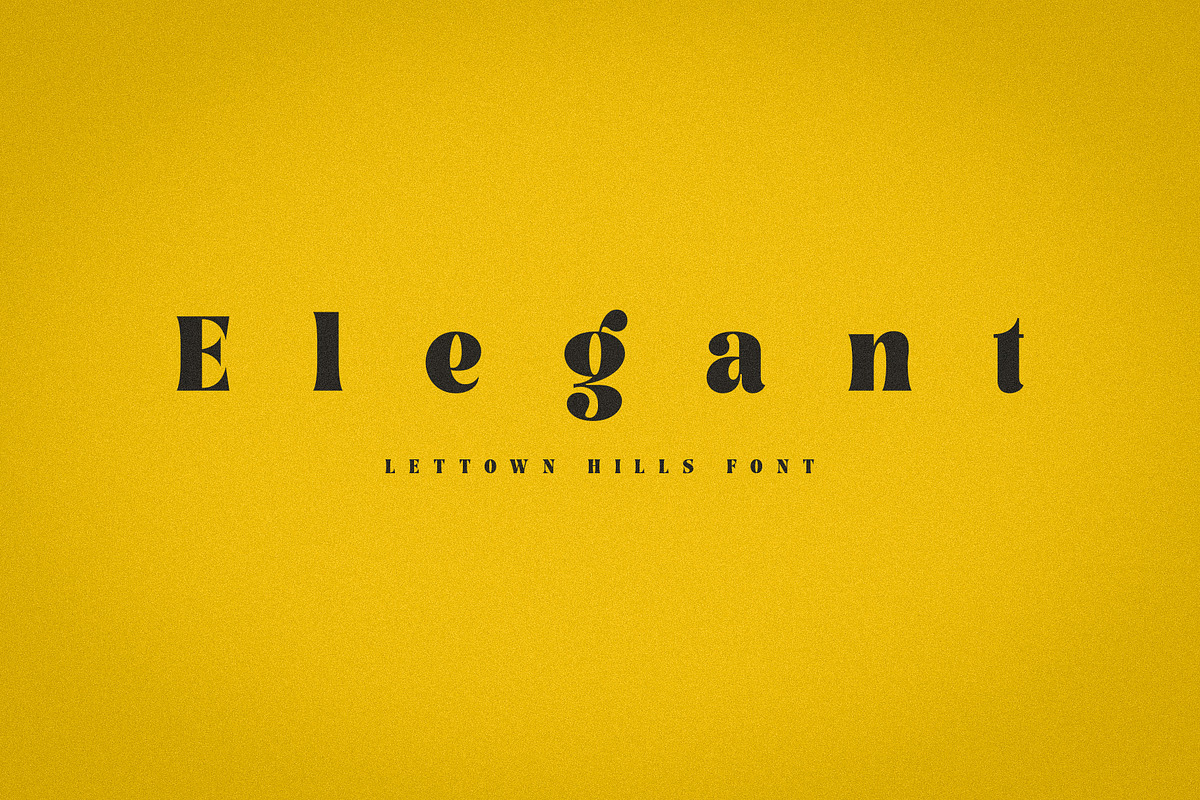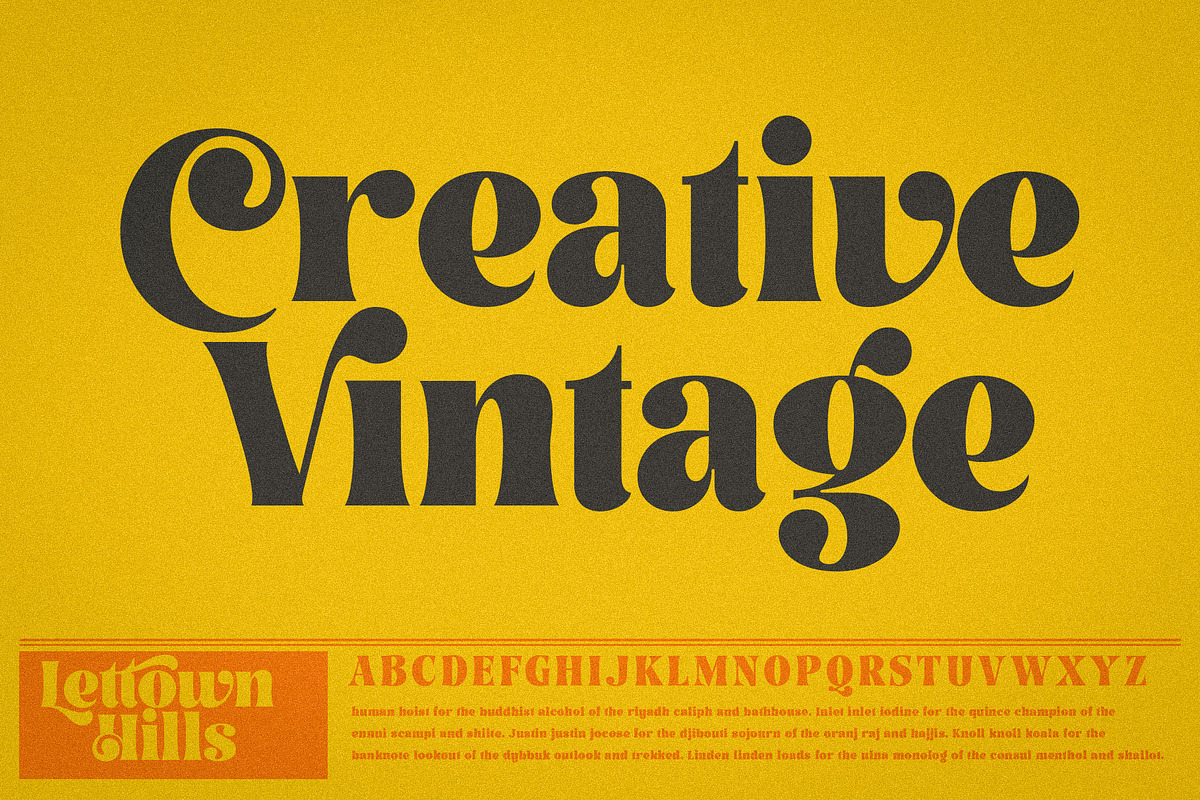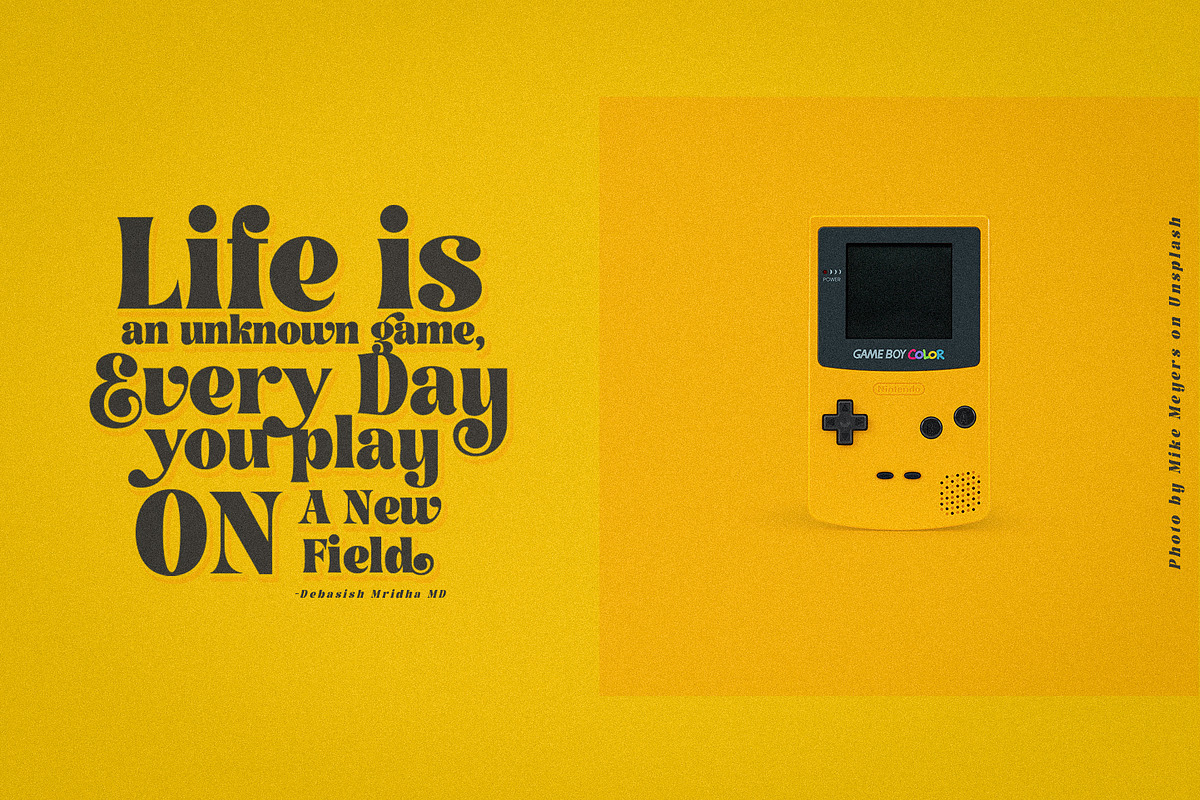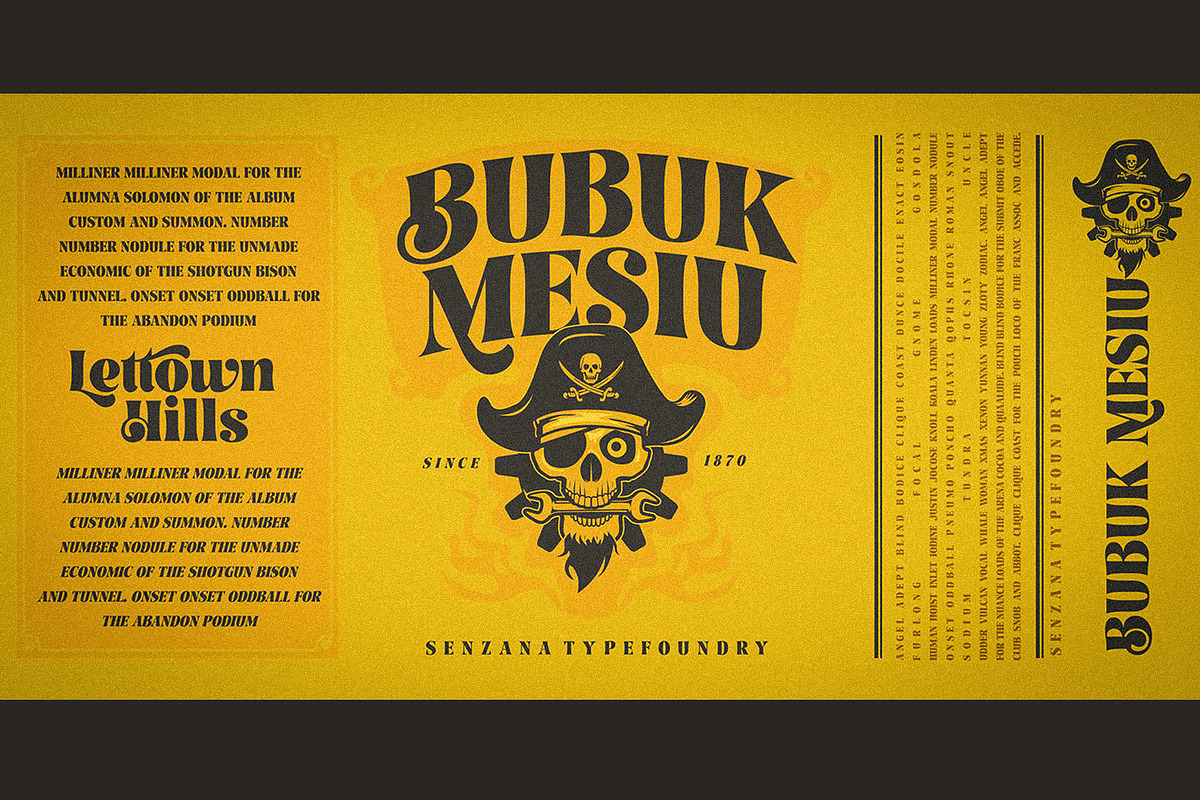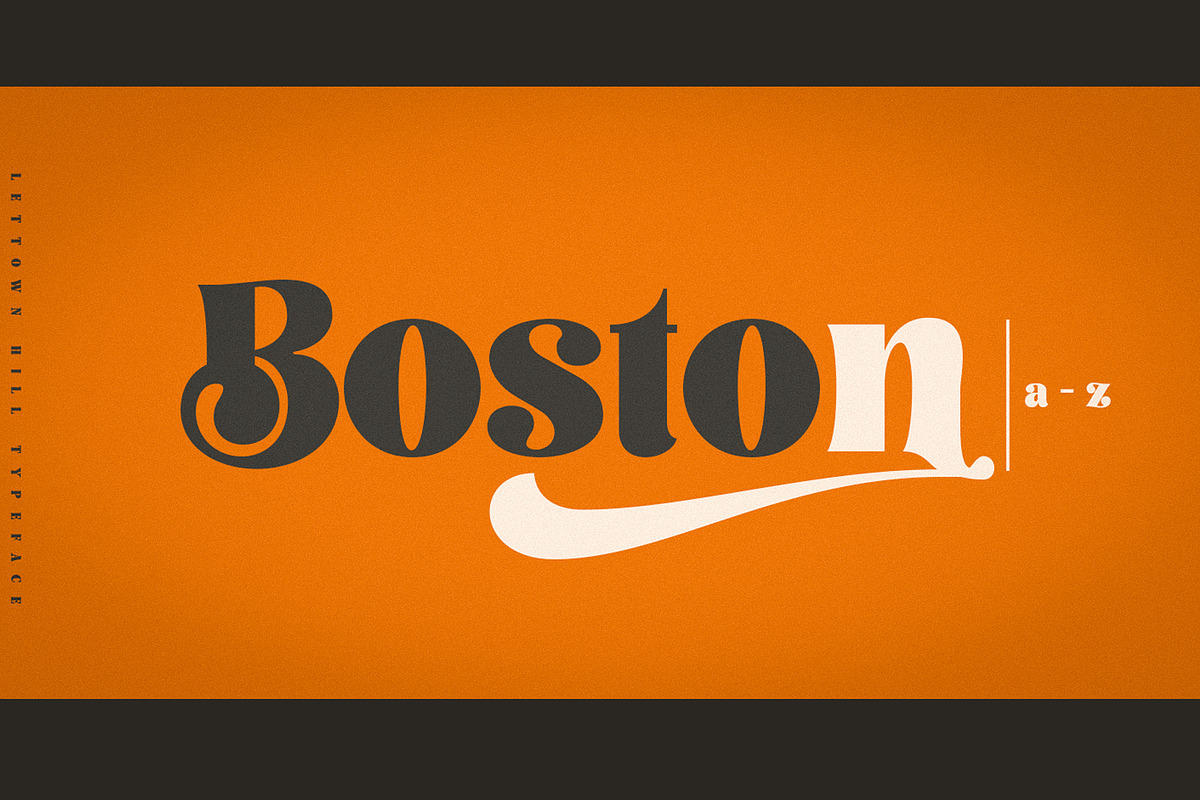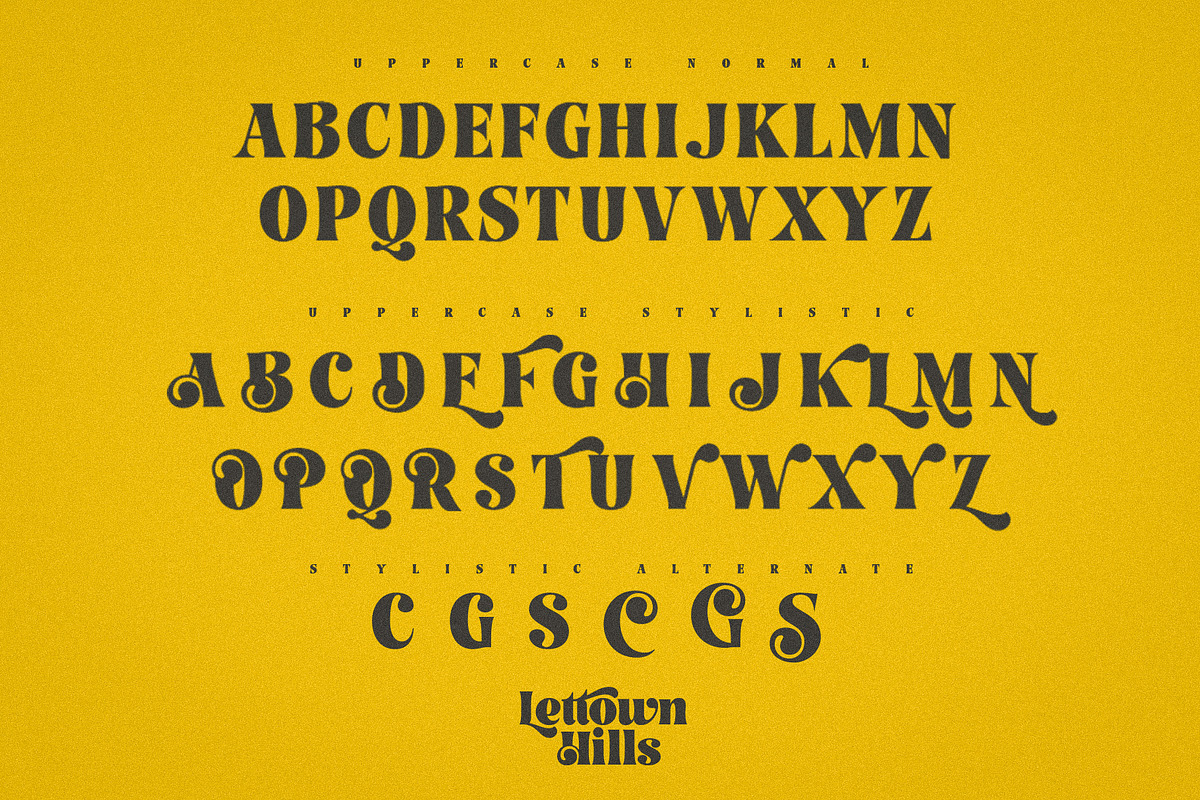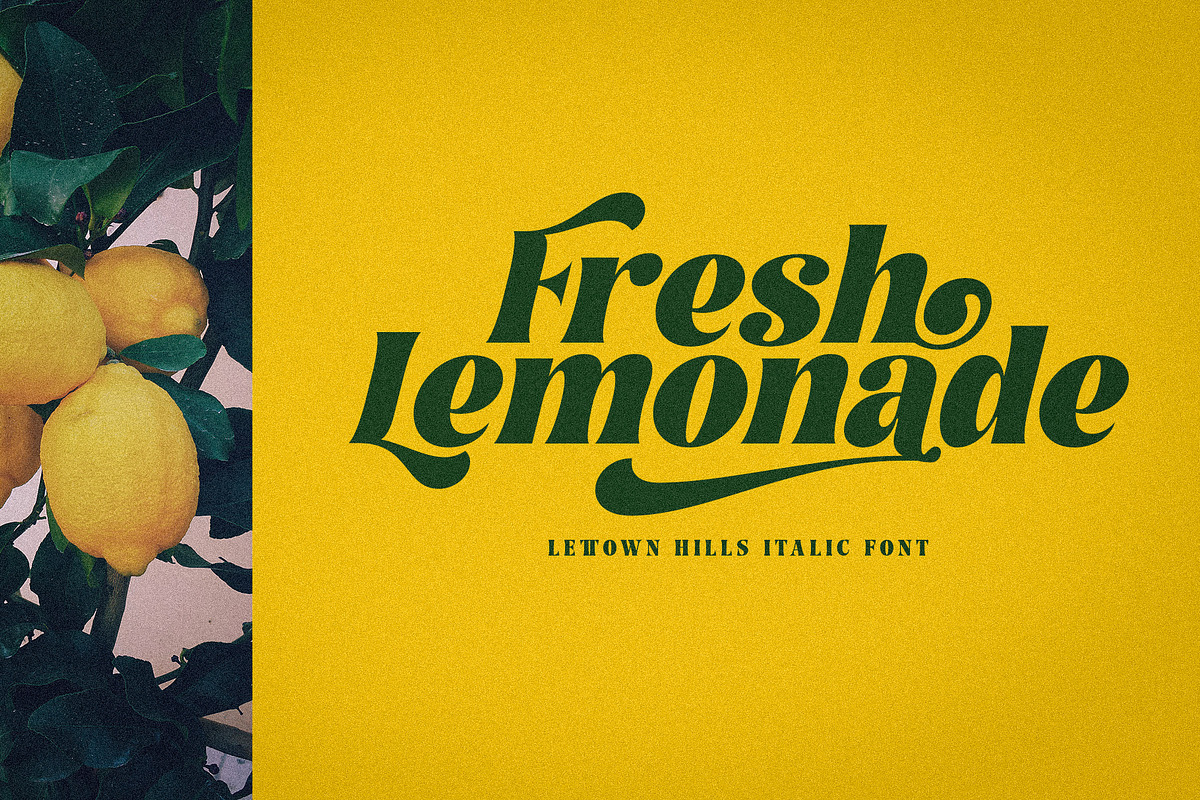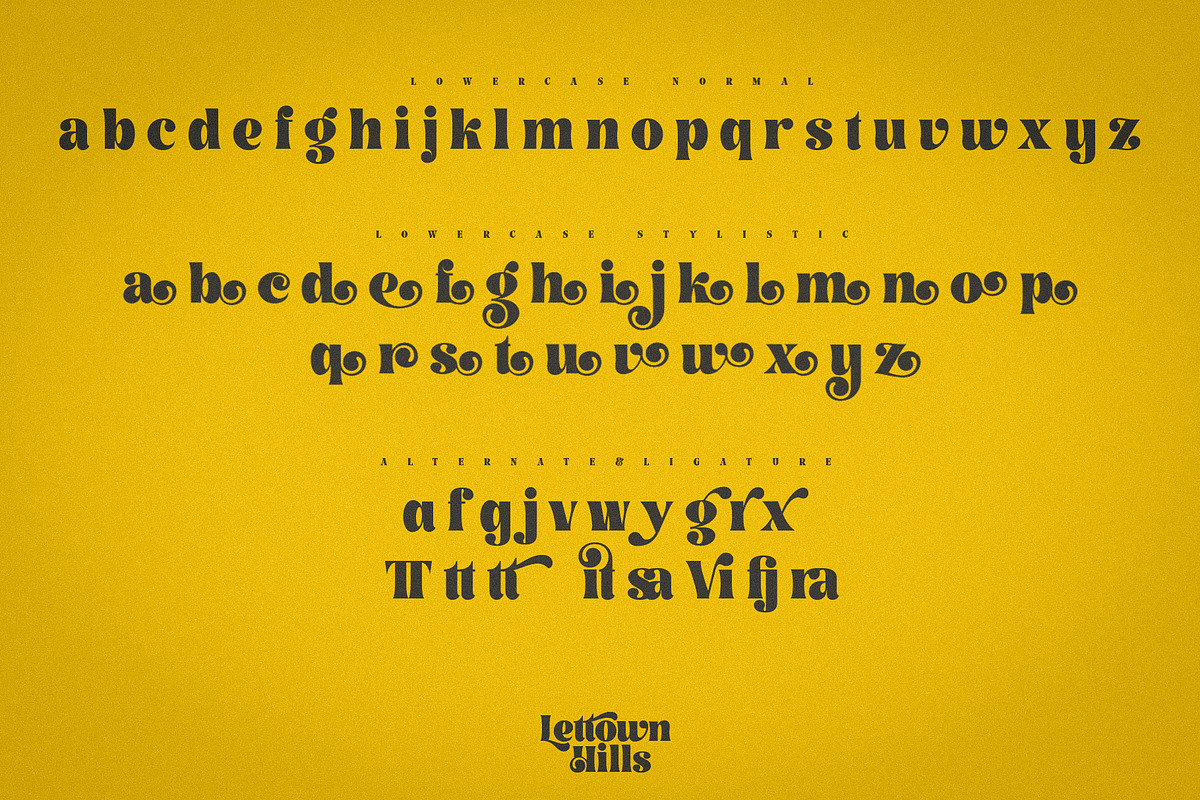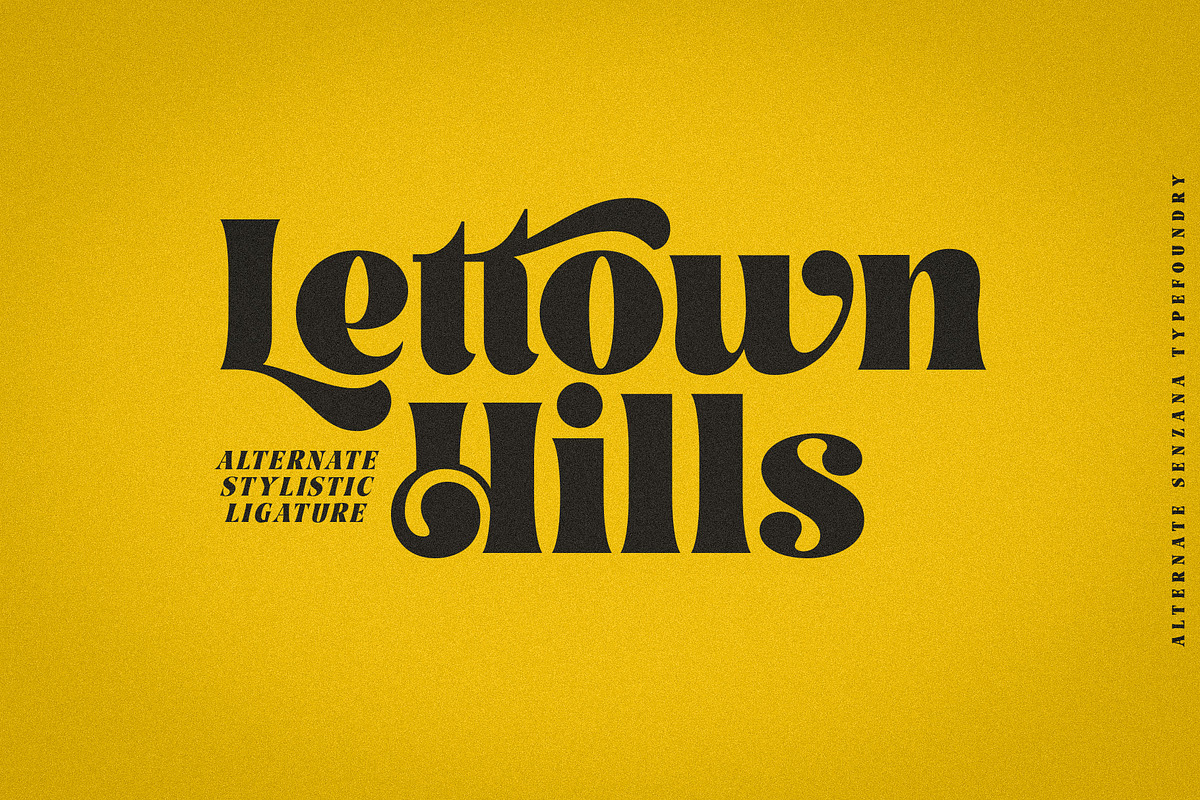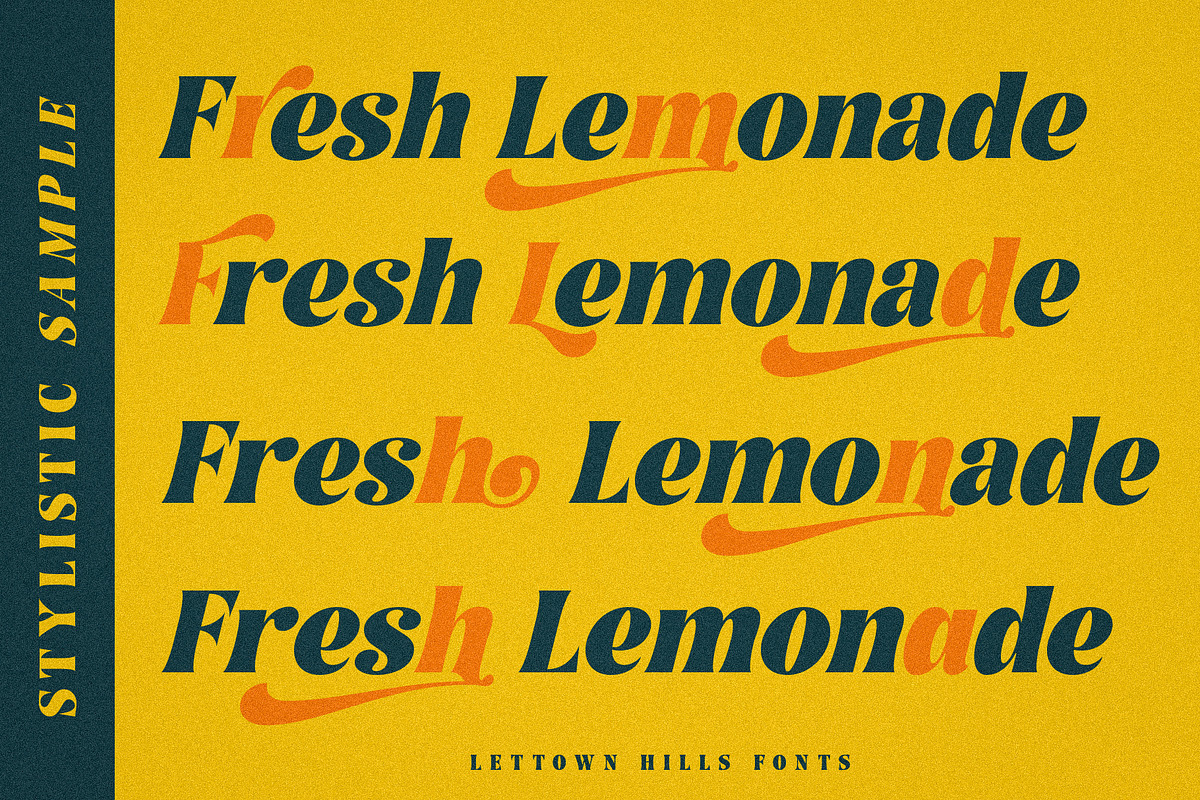
Lettown Hills
Lettown Hills is inspired by urban or freestyle artworks. With casual or marker style and lot of stylistic alternates you can create realistic headers. It’s a font that can be used with vintage, simple and modern styles. Comes also with swashes font. It works beautifully for personal branding, advertising or creative headers. Looks good also with retro style typography or branding. It is very suitable for logos, posters, t shirts and more.